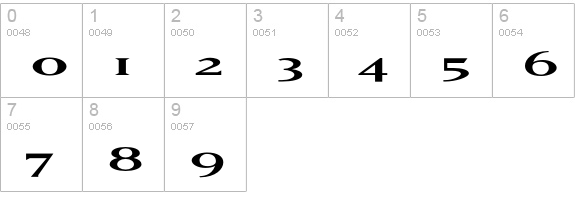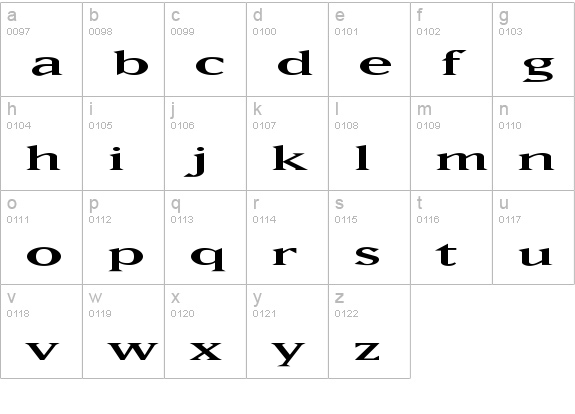
MatrixWideOldstyle Font Details
MatrixWideOldstyle font is a timeless and elegant typeface that exudes sophistication and style. With its classic and refined design, this font is perfect for adding a touch of vintage charm to your projects. The elongated letterforms and intricate details give MatrixWideOldstyle a sense of old-world charm and allure. What sets MatrixWideOldstyle font apart is not just its beauty, but also its versatility. Whether you're designing a wedding invitation, crafting a logo, or creating a vintage-inspired poster, this font will elevate your design and give it a touch of class and elegance. And the best part? MatrixWideOldstyle font is available for free download at FontsMarket.com. Yes, you read that right - you can get your hands on this stunning font without spending a penny. So why wait? Head over to FontsMarket.com now and add MatrixWideOldstyle to your font collection today.